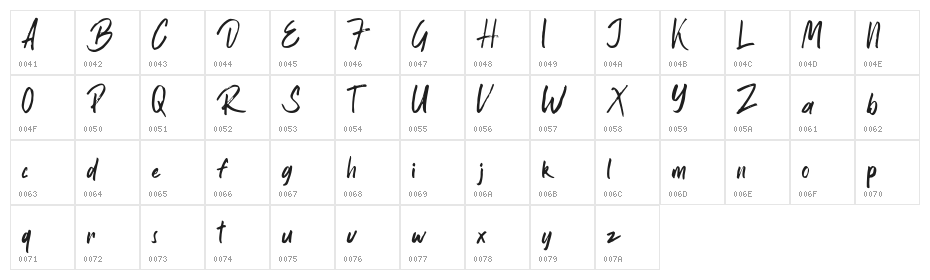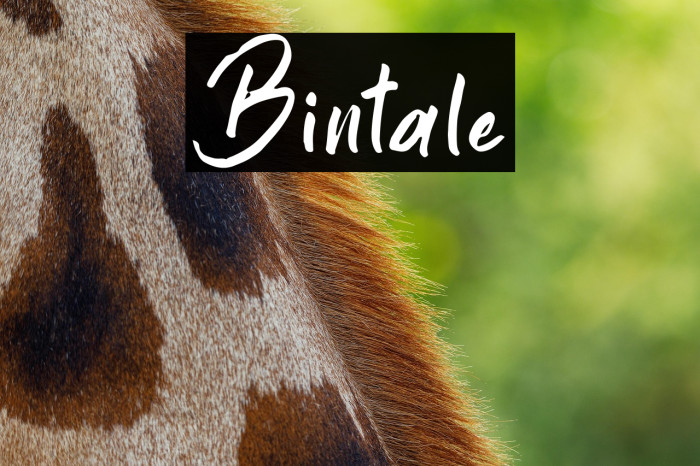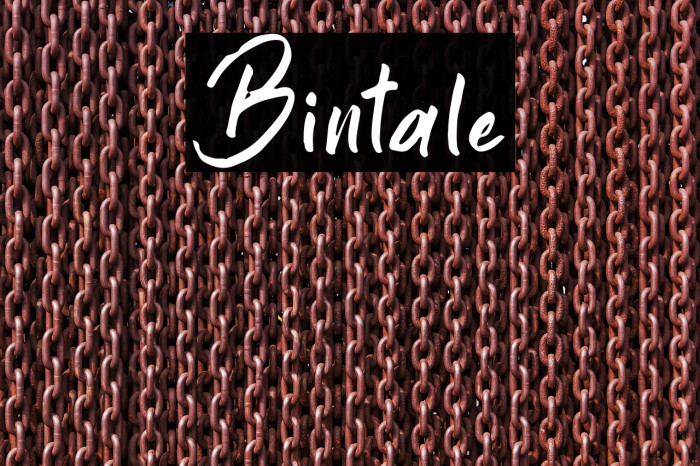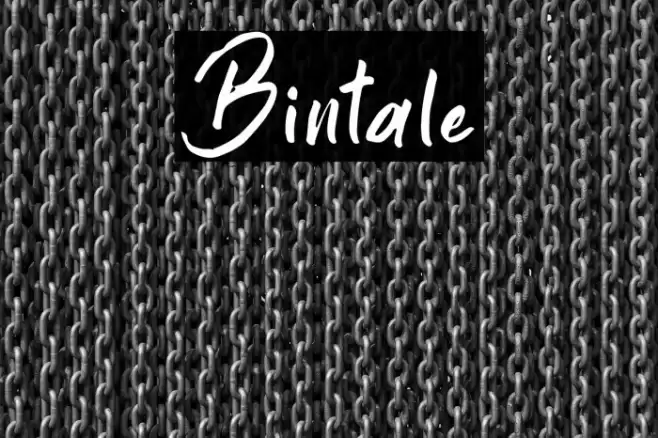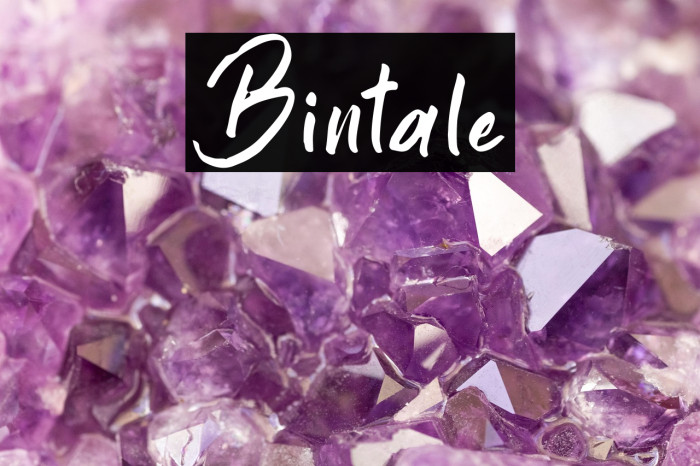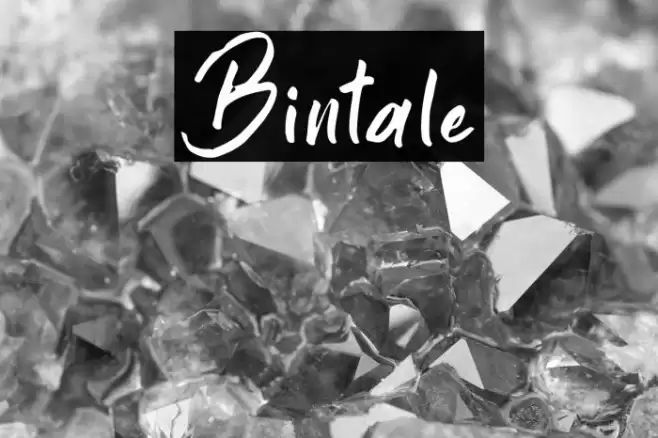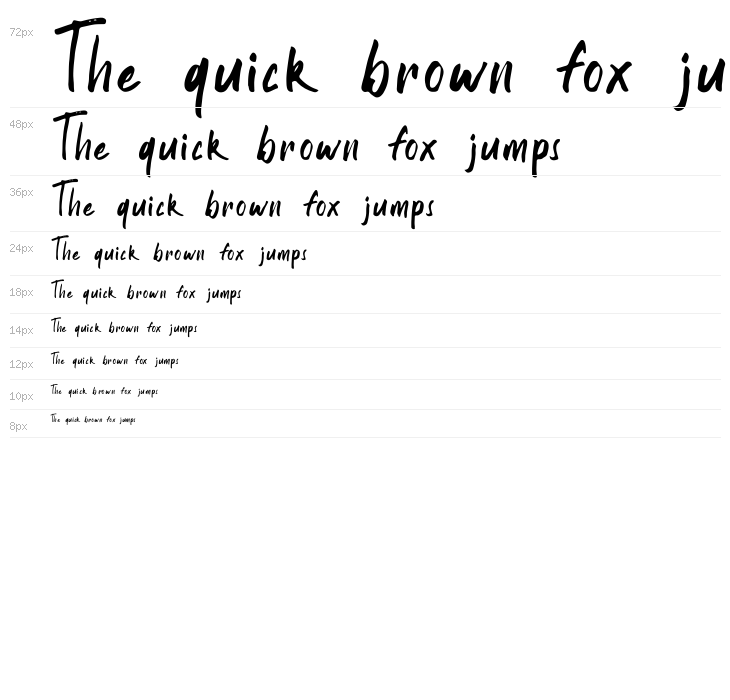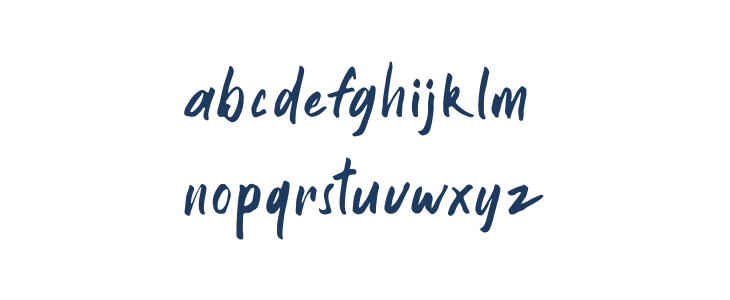
Bintale Font
Bintale Description
This font exudes a dynamic and energetic style, characterized by its bold, brush-like strokes that convey a sense of movement and fluidity. The uppercase and lowercase letters maintain a consistent flow, with slightly irregular edges that add a handcrafted feel. The font's design is reminiscent of modern calligraphy, combining elegance with a casual, approachable vibe. Its high contrast in stroke thickness enhances its visual impact, making it suitable for attention-grabbing headlines or artistic projects. The characters are well-spaced, allowing for readability while maintaining a cohesive look.
| Proposed Projects | Ideal for branding, posters, social media graphics, and creative projects that require a bold, artistic touch. |